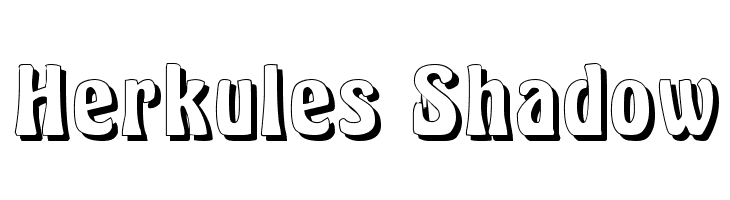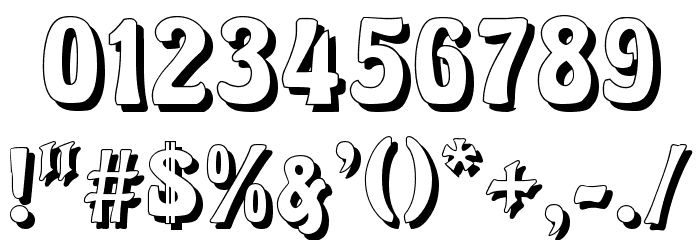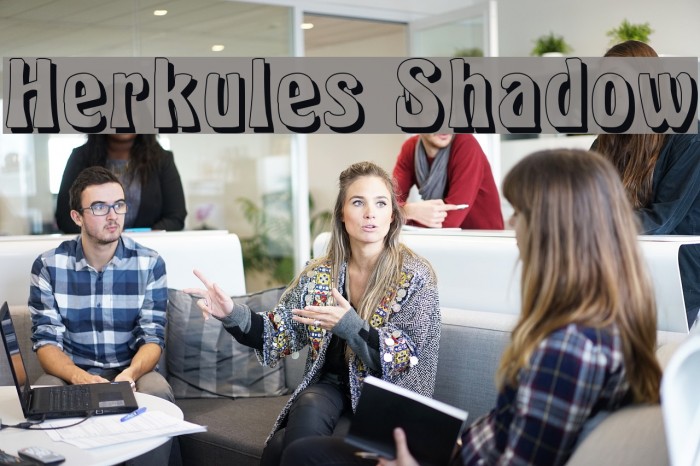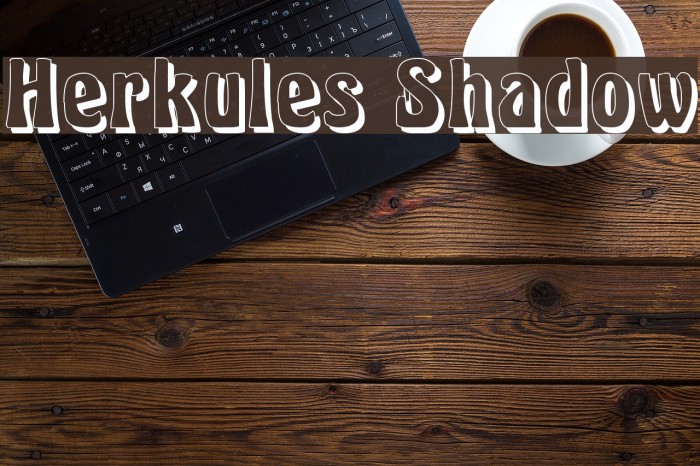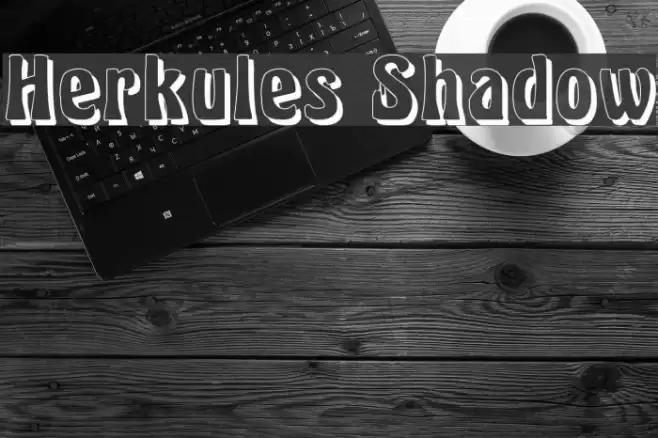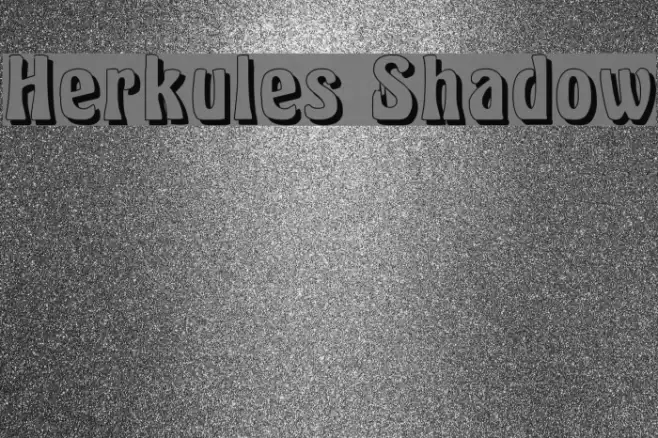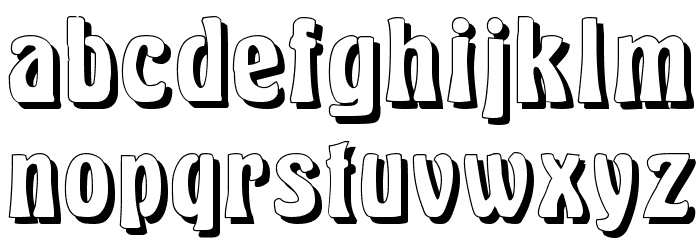
Herkules Shadow Font
Herkules Shadow Description
This font features a bold, playful design with a distinct shadow effect that adds depth and dimension to each character. The letters are rounded and slightly condensed, giving them a friendly and approachable appearance. The shadow is consistently applied, creating a three-dimensional look that makes the text stand out. This style is reminiscent of vintage signage or comic book lettering, offering a nostalgic yet modern feel. The font includes a full set of uppercase and lowercase letters, numerals, and a variety of special characters, making it versatile for different design needs.
| Proposed Projects | Ideal for posters, comic books, children's books, and playful branding projects. |